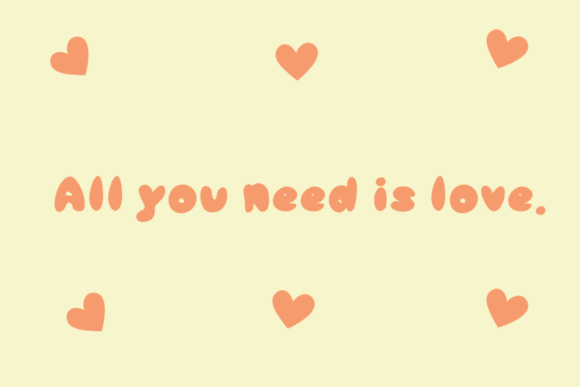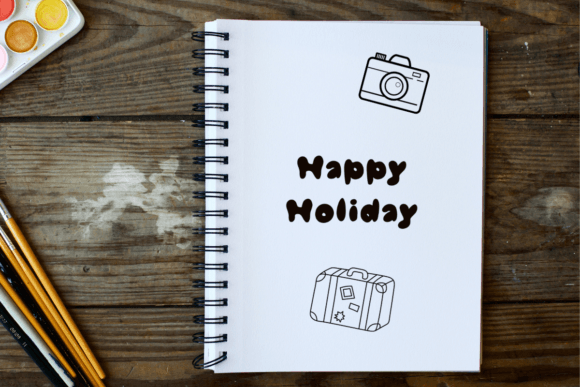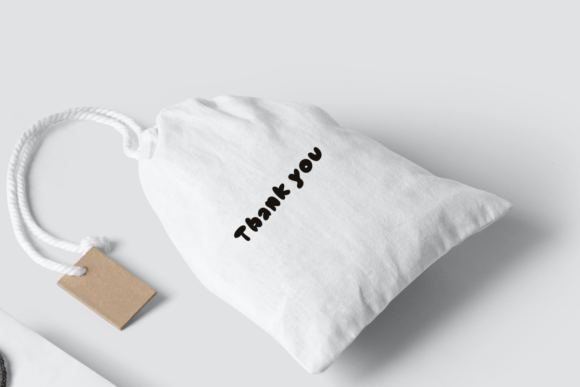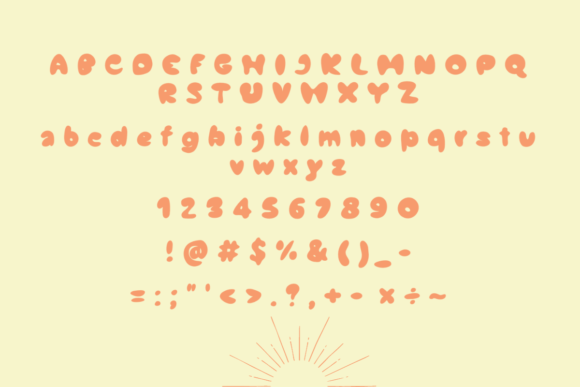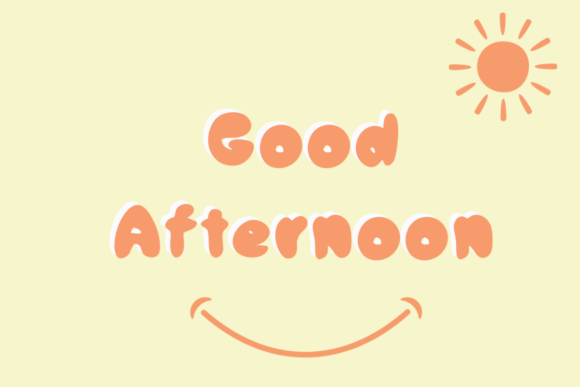
Introducing Good Afternoon Font: The Perfect Addition to Your Design Projects
Are you a designer or crafter looking for a font that can add a touch of cuteness and relaxation to your projects? Look no further than Good Afternoon font! This display font is perfect for a variety of projects, from cards and flyers to banners and book titles. In this article, we’ll take a closer look at Good Afternoon font and explore its many uses.
What is Good Afternoon Font?
Good Afternoon font is a display font designed to evoke a sense of cuteness and relaxation. Its playful and whimsical design makes it perfect for projects that require a friendly and approachable tone. The font is highly versatile and can be used on a variety of materials, including:
- Cards: Add a personal touch to your greeting cards, invitations, and postcards with Good Afternoon font.
- Flyers: Create eye-catching flyers for events, promotions, and products with this fun and playful font.
- Banners: Use Good Afternoon font to create banners that are perfect for parties, celebrations, and special occasions.
- Book Titles: Add a touch of whimsy to your book titles, headings, and subtitles with this unique font.
- Social Media: Use Good Afternoon font to create engaging social media graphics, posts, and stories.
Why Choose Good Afternoon Font?
So, why should you choose Good Afternoon font for your design projects? Here are just a few reasons:
- Cute and Playful Design: Good Afternoon font has a unique and playful design that is sure to capture the attention of your audience.
- Highly Versatile: This font can be used on a variety of materials, from digital graphics to print materials.
- Easily Readable: Despite its playful design, Good Afternoon font is highly readable, making it perfect for body text and headings.
- Kid-Friendly: The font’s cute and playful design makes it perfect for projects aimed at kids, such as children’s books, party invitations, and educational materials.
How to Use Good Afternoon Font
Using Good Afternoon font is easy! Here are a few tips to get you started:
- Pair it with Other Fonts: Good Afternoon font pairs well with other fonts, such as sans-serif fonts, to create a unique and interesting contrast.
- Experiment with Colors: The font looks great in a variety of colors, from bright and bold to pastel and soft.
- Use it for Headings and Titles: Good Afternoon font is perfect for headings, titles, and subtitles, but it can also be used for body text.
Here are a few tips and tricks for designers and crafters looking to get the most out of Good Afternoon font:
- Use it for DIY Projects: Good Afternoon font is perfect for DIY projects, such as handmade cards, invitations, and decorations.
- Create Custom Graphics: Use Good Afternoon font to create custom graphics, such as logos, icons, and illustrations.
- Experiment with Different Sizes: The font looks great in a variety of sizes, from small and delicate to large and bold.
| Font Name | Good Afternoon Font |
| Author | fonty88 |
In conclusion, Good Afternoon font is a versatile and playful display font that is perfect for a variety of design projects. Its cute and relaxing design makes it ideal for projects aimed at kids, while its highly readable design makes it suitable for body text and headings. Whether you’re a designer or crafter, Good Afternoon font is a great addition to your font collection.